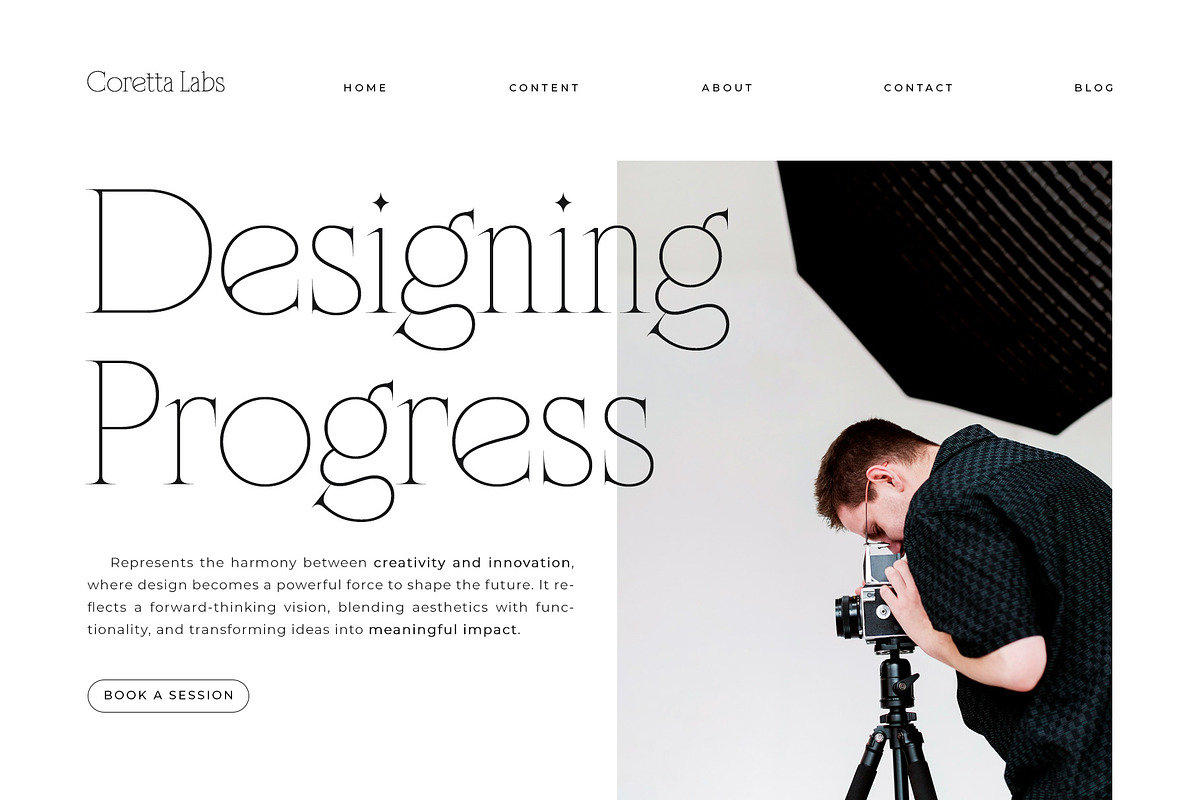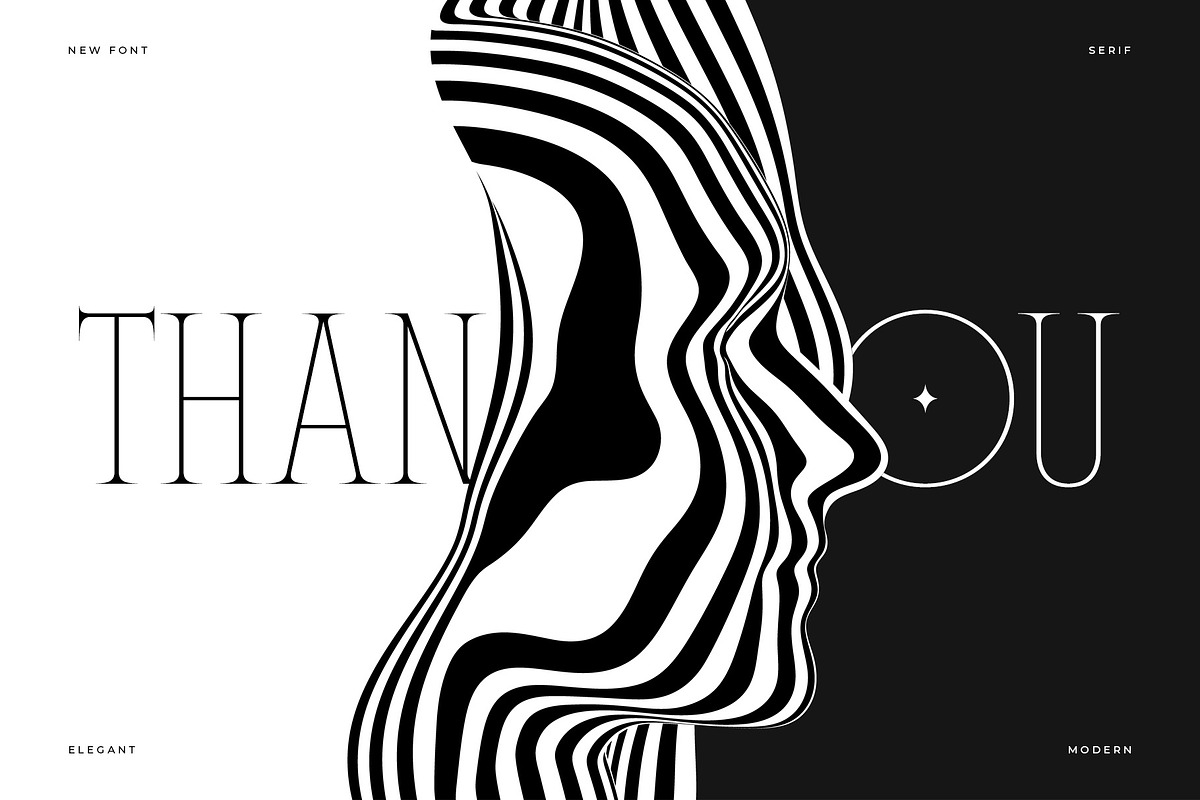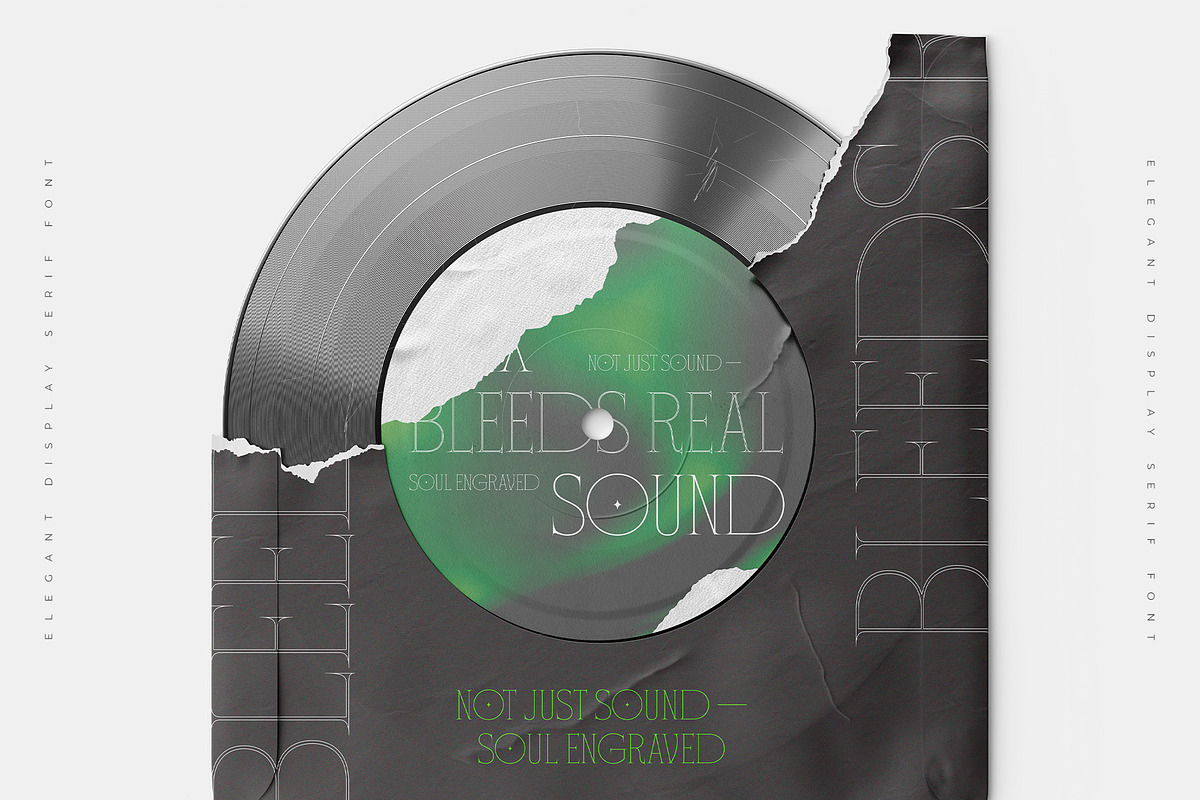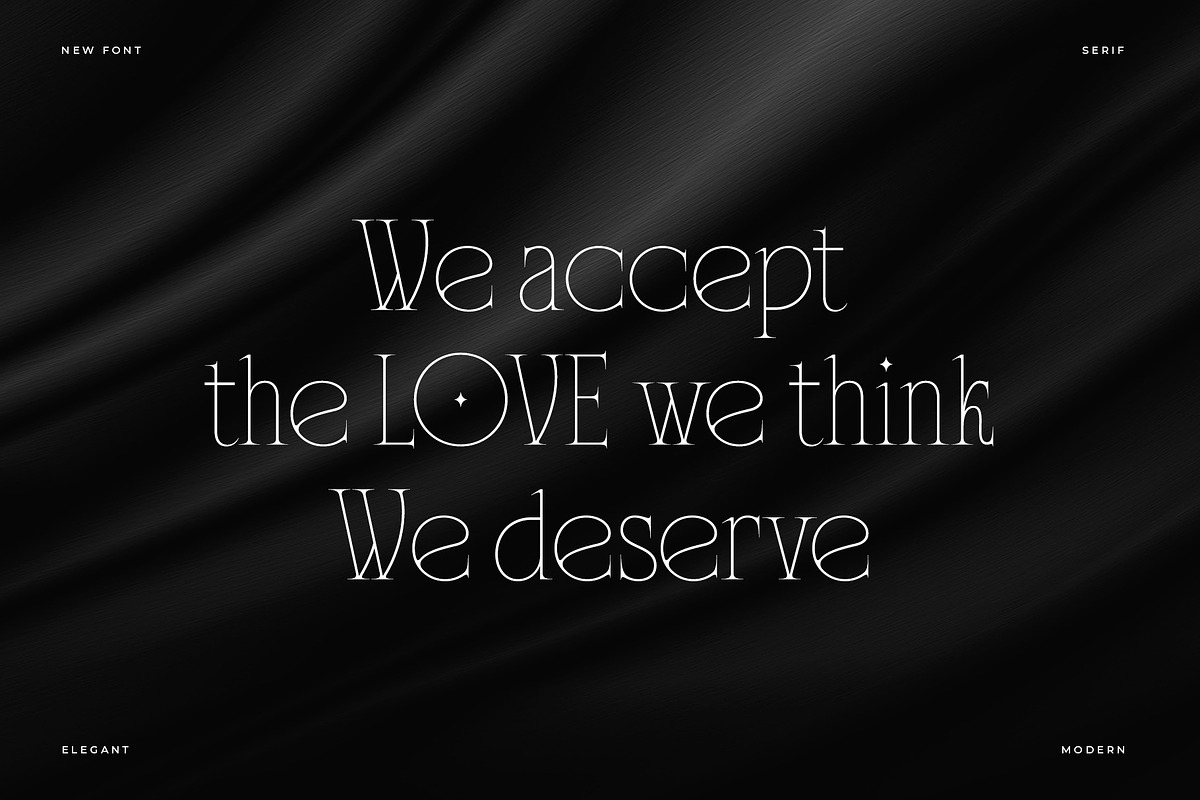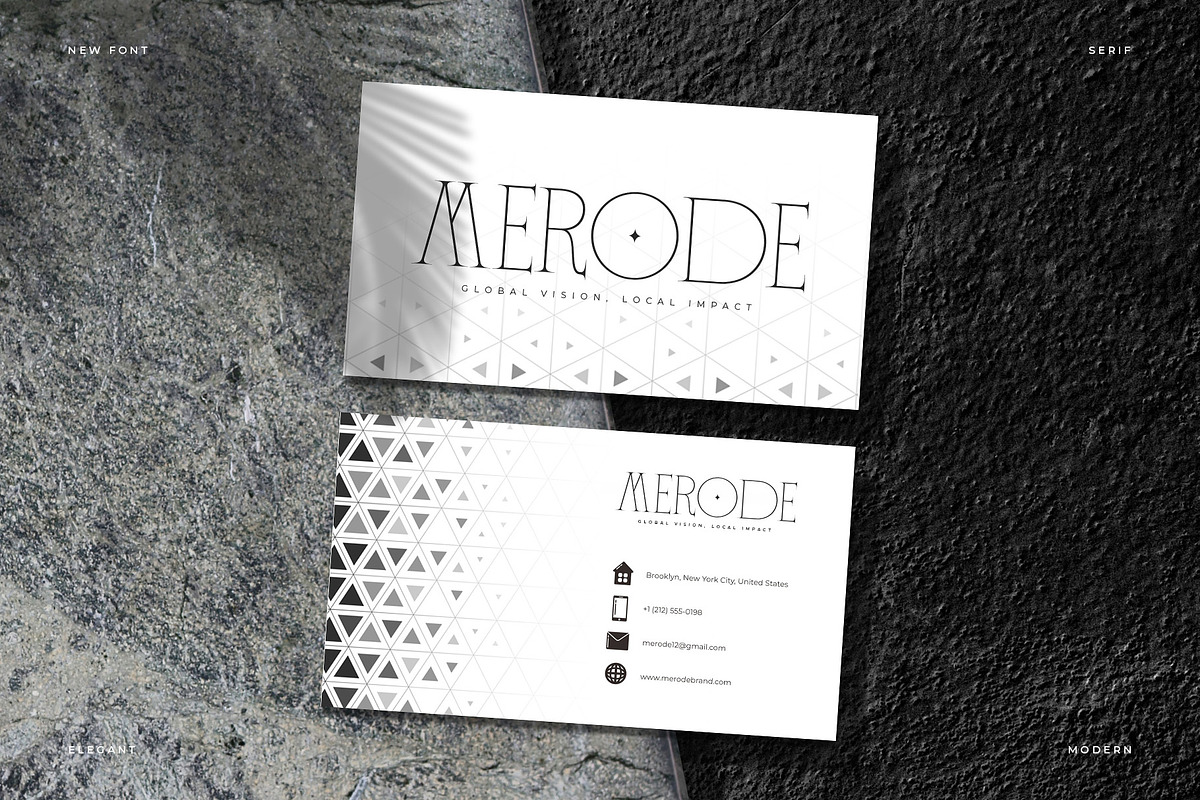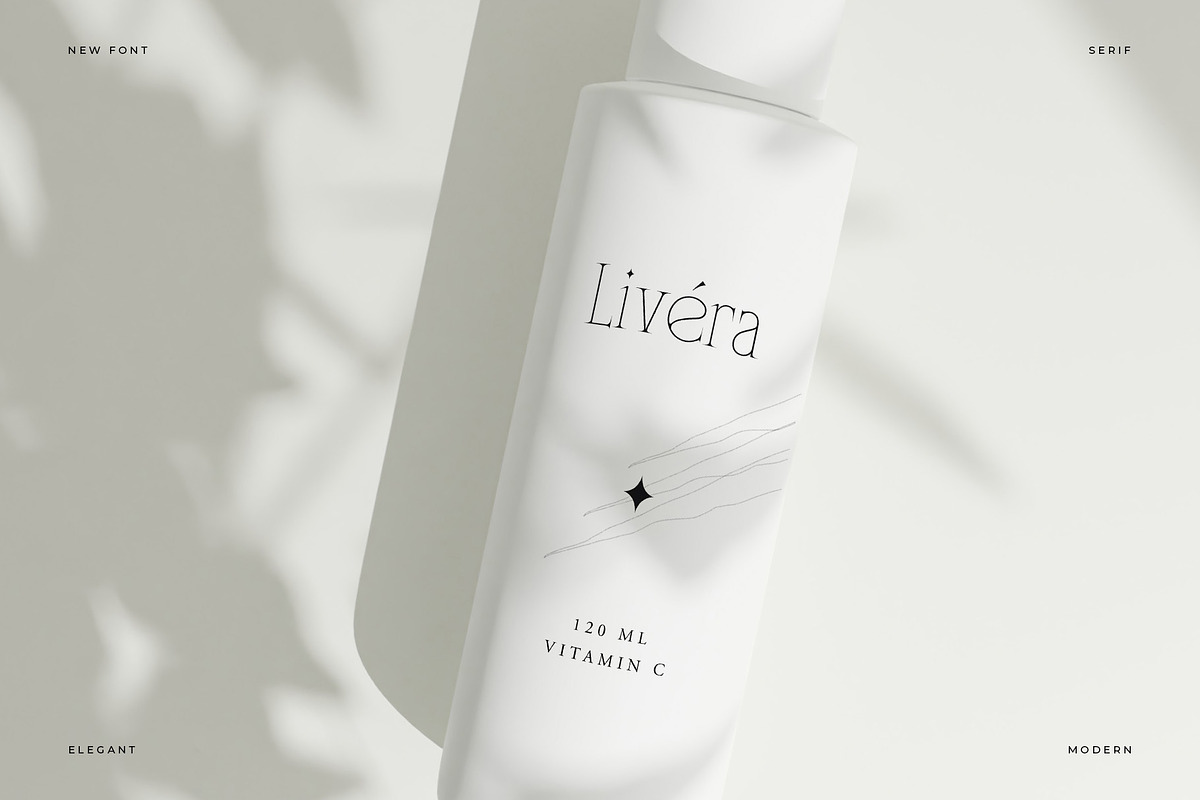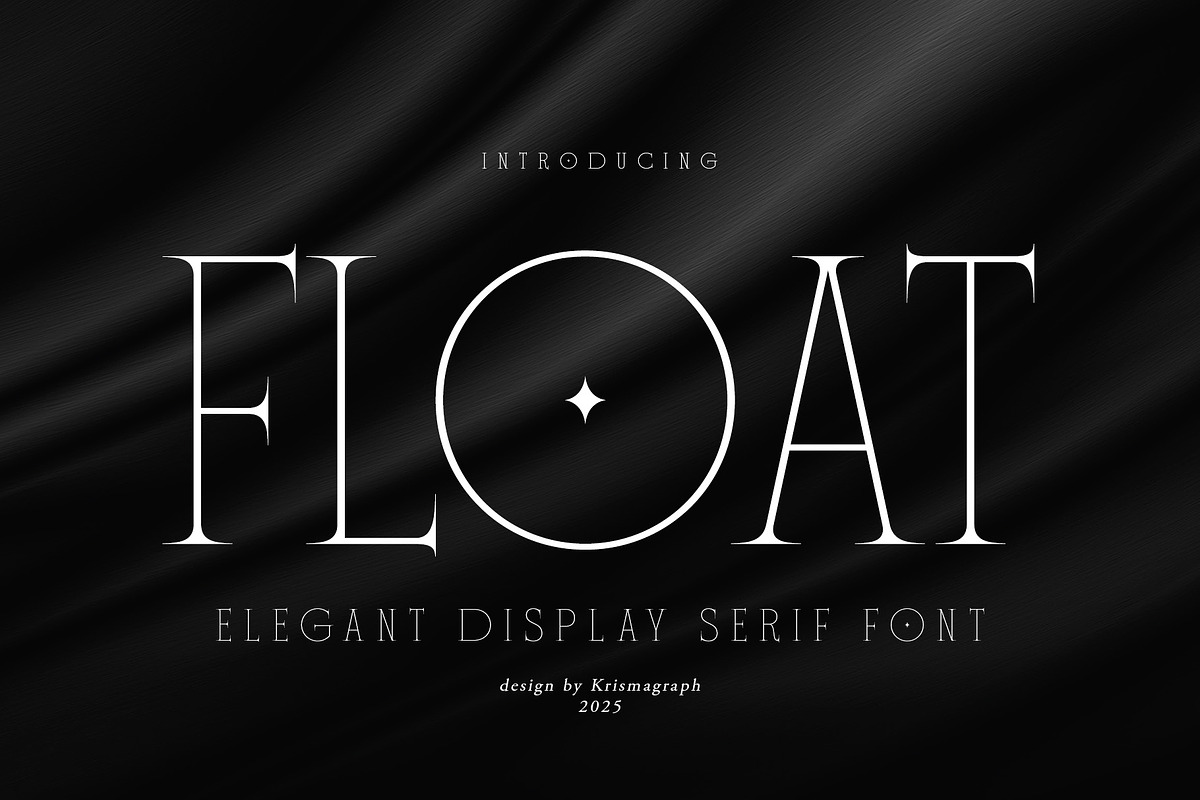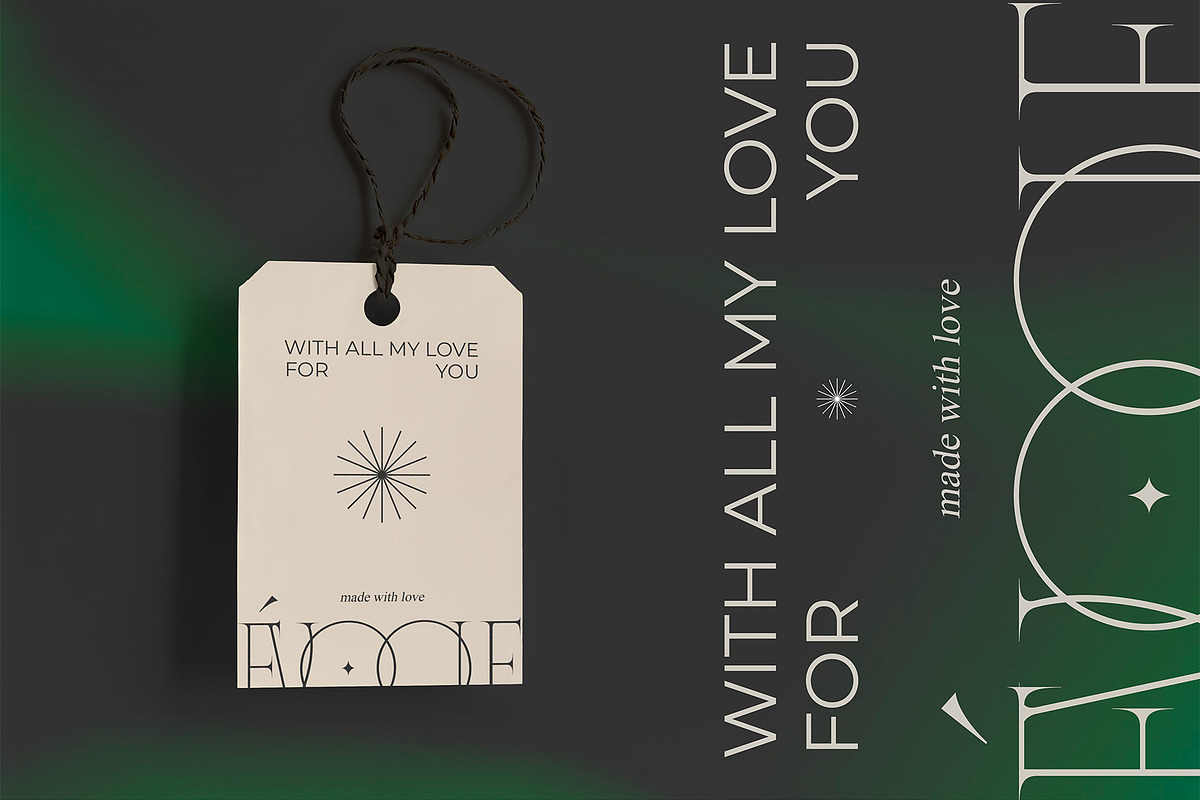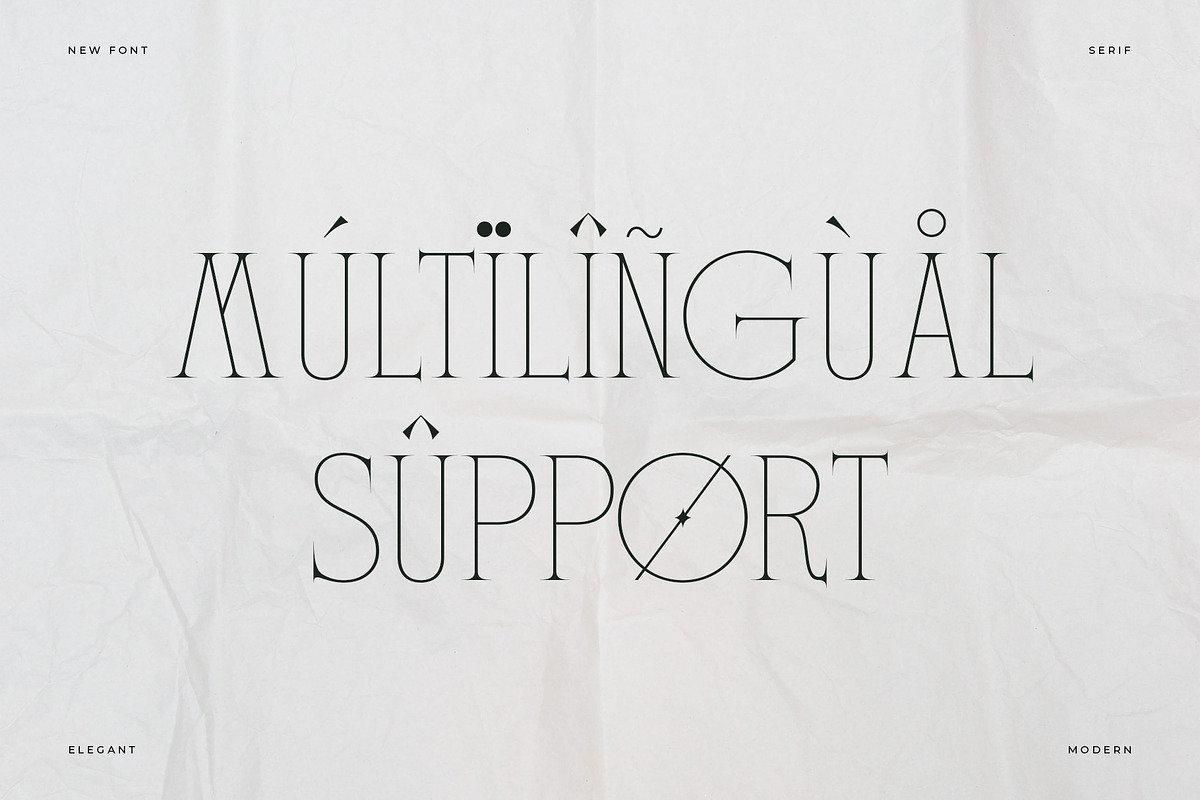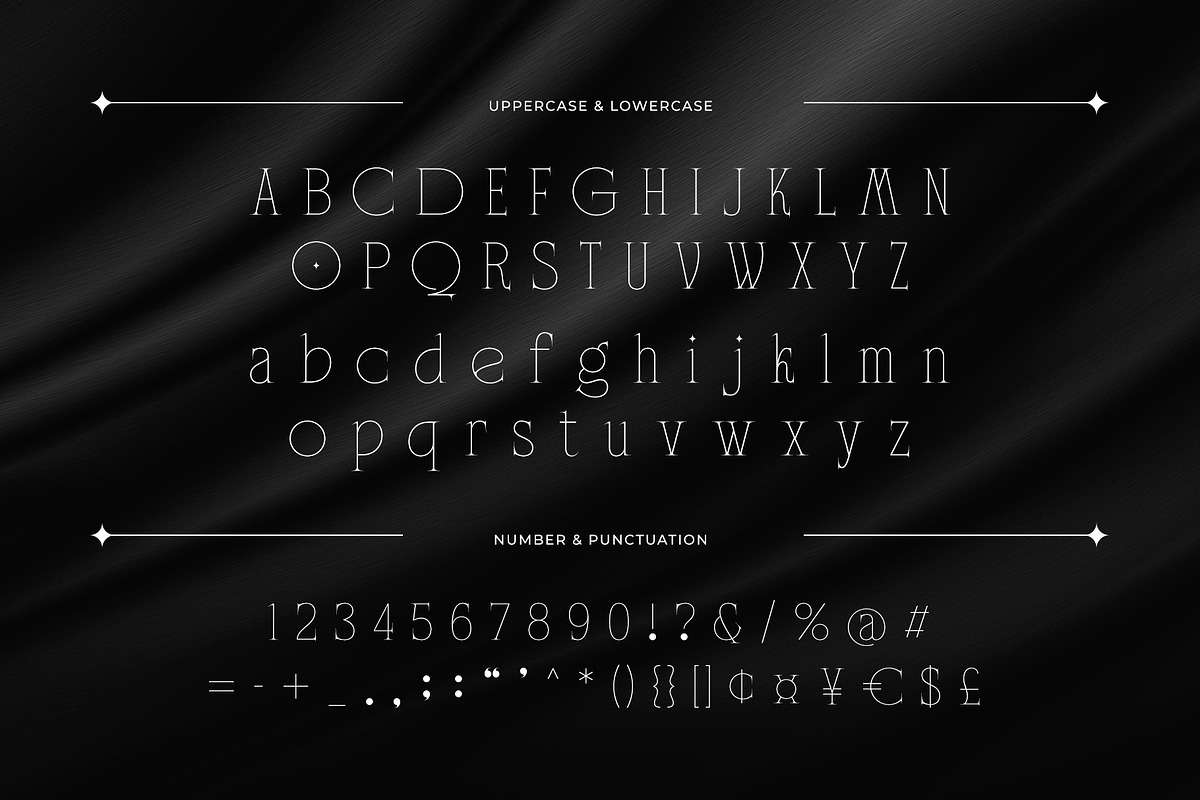
Float – Elegant Display Serif
Introducing Float, an elegant display serif font designed with refined lines, sharp serifs, and a luxurious presence. Float is all about sophistication and style, making it the perfect choice for modern brands and impactful headlines. Its tall letterforms and minimal yet striking details make it a versatile font for upscale creative projects. FEATURES:
- Ideal for large headlines & displays
- High-contrast elegant serif style
- Numerial